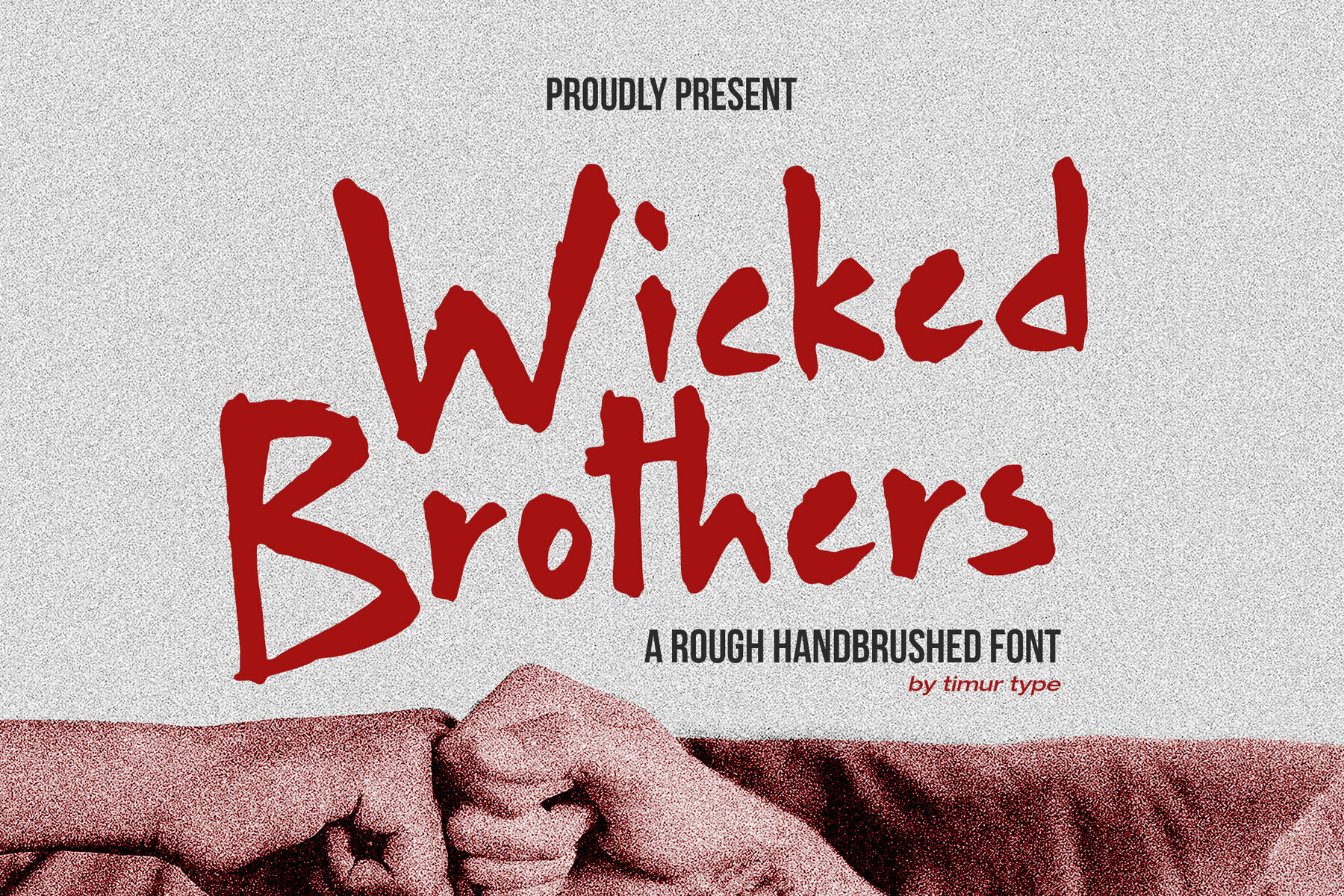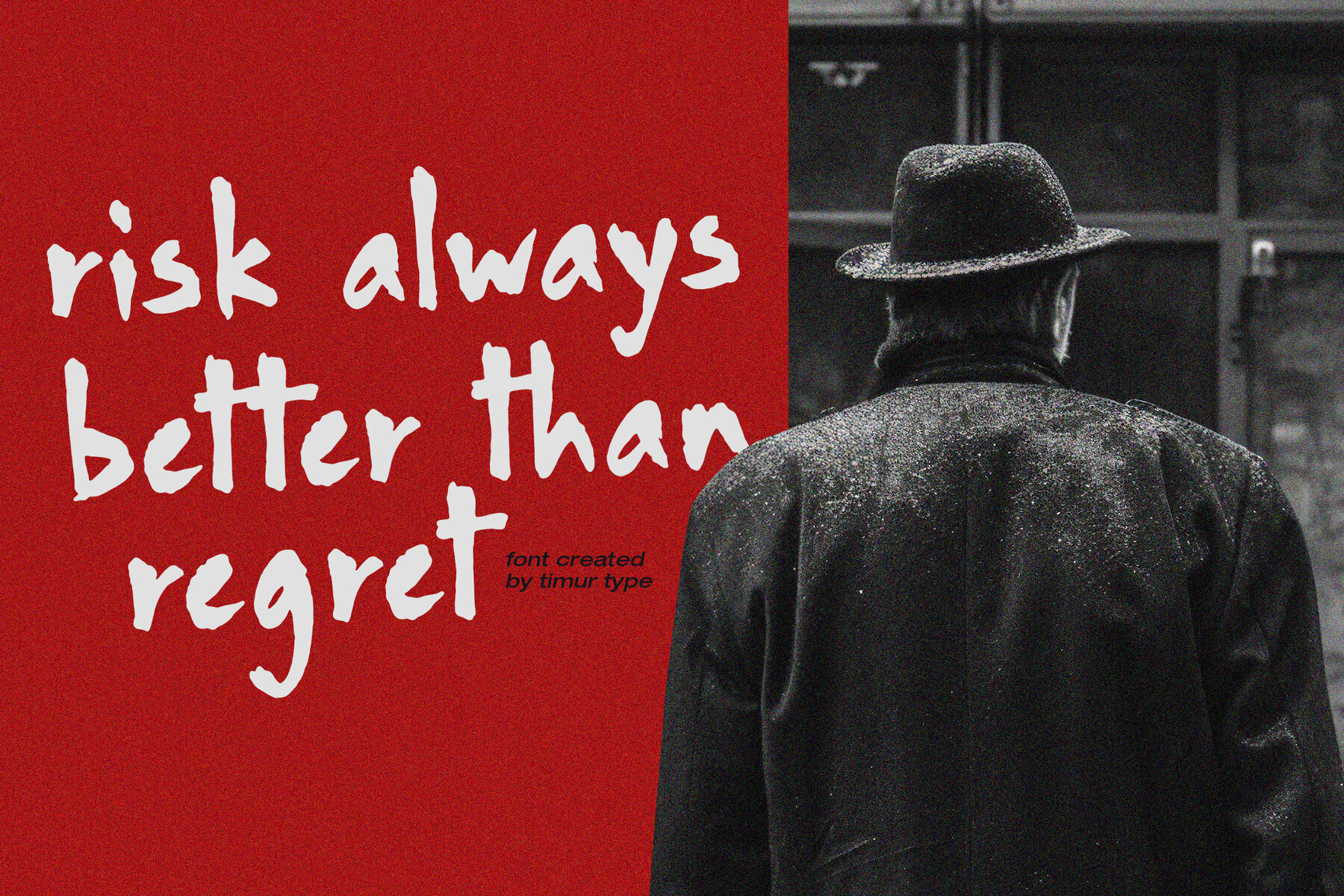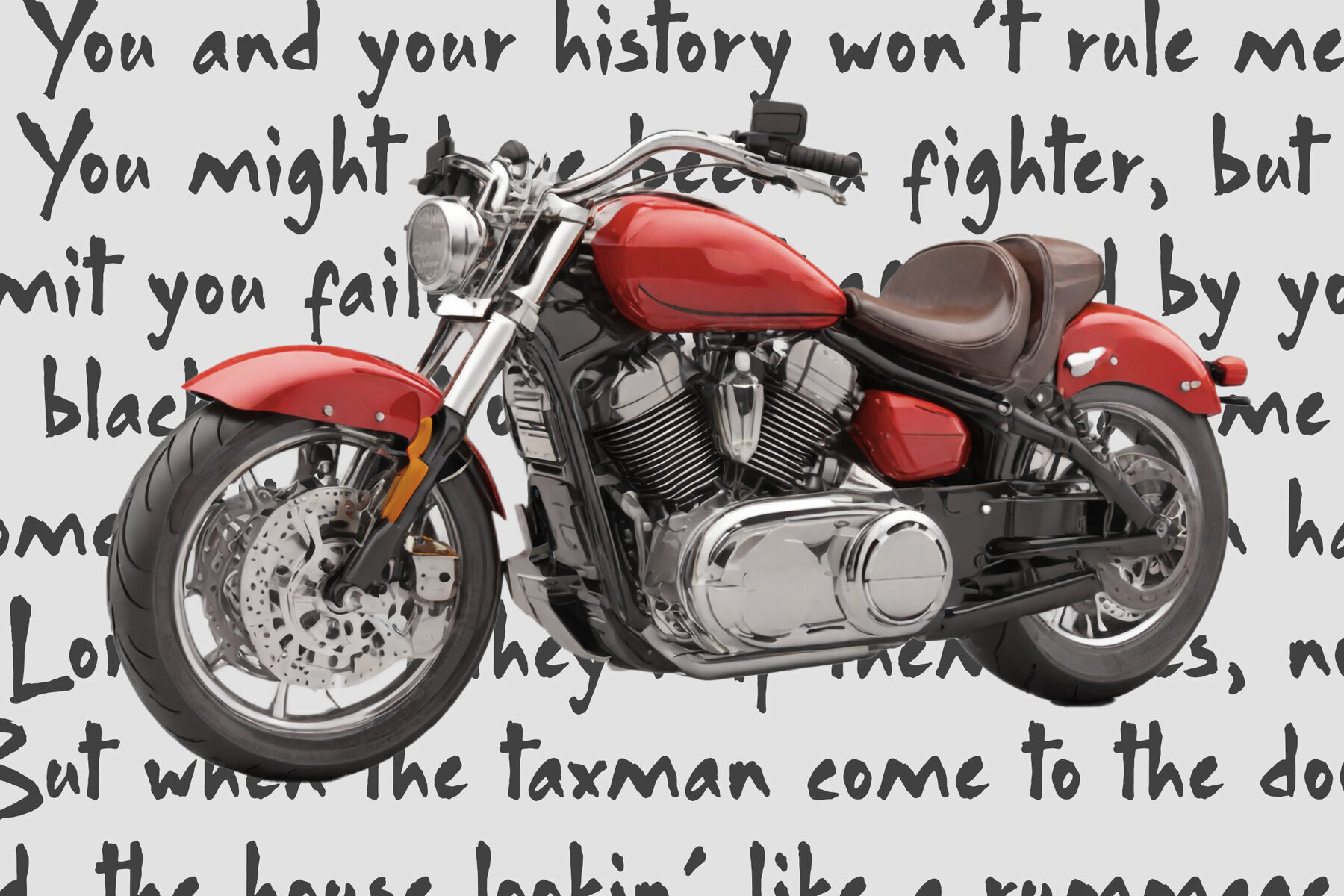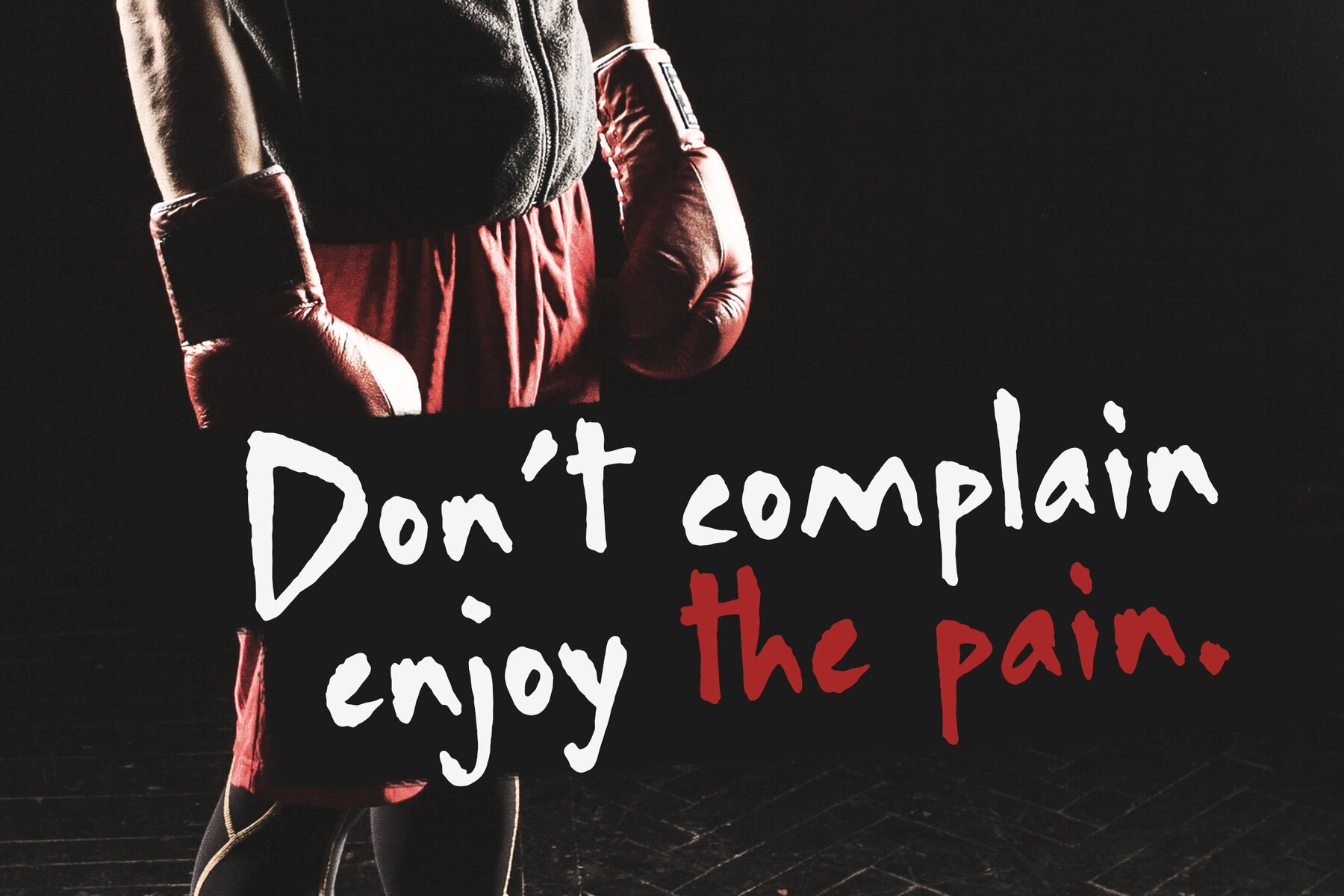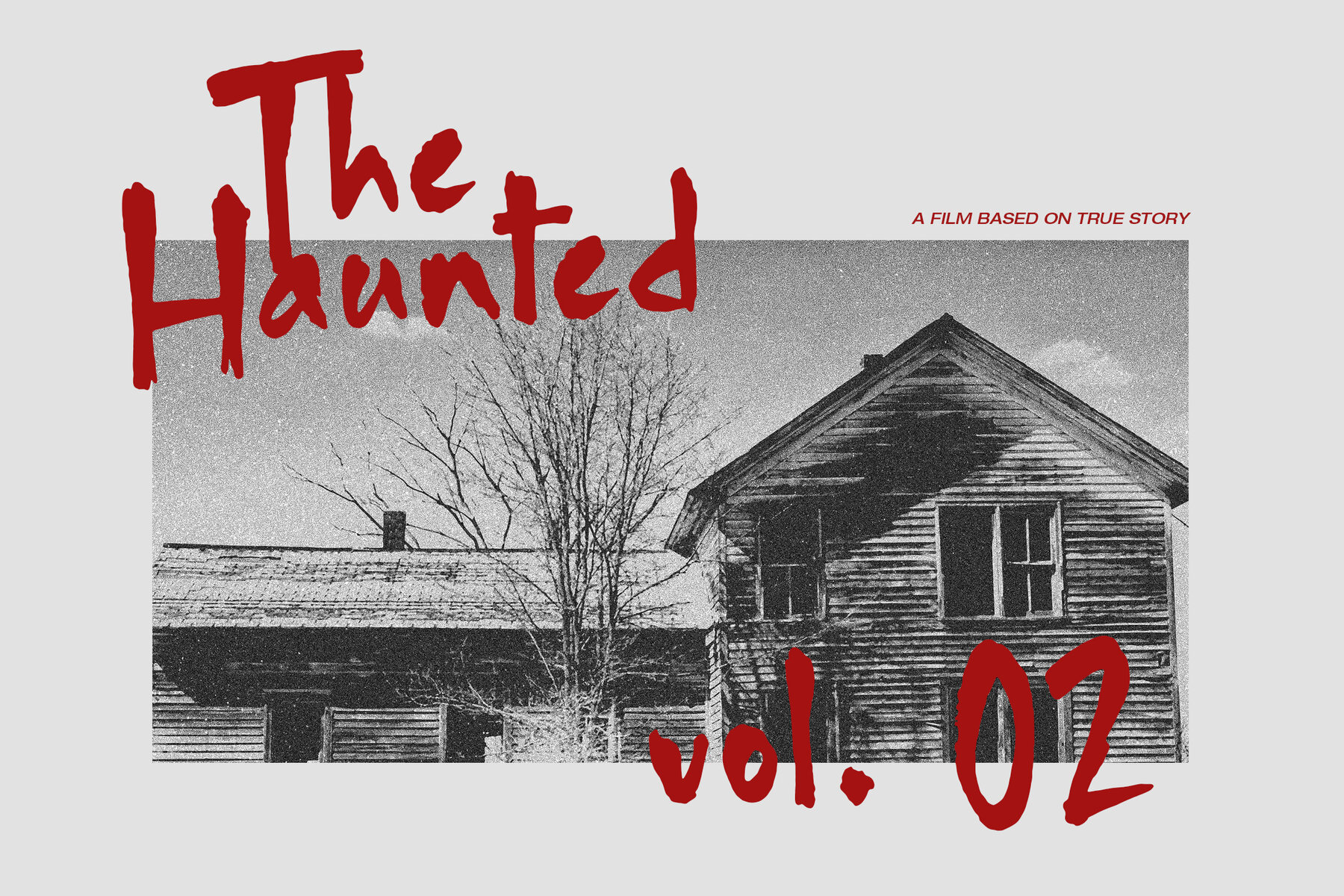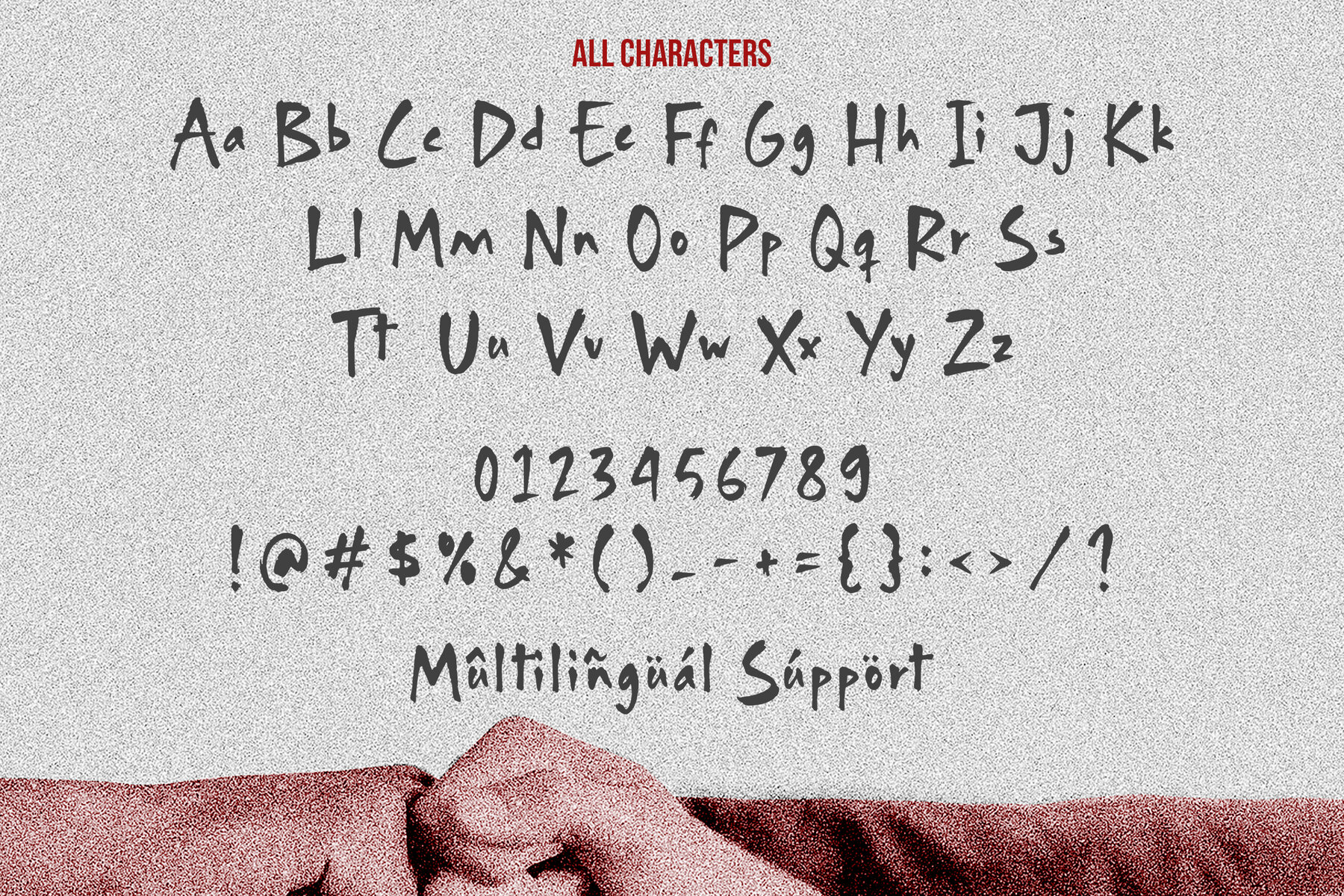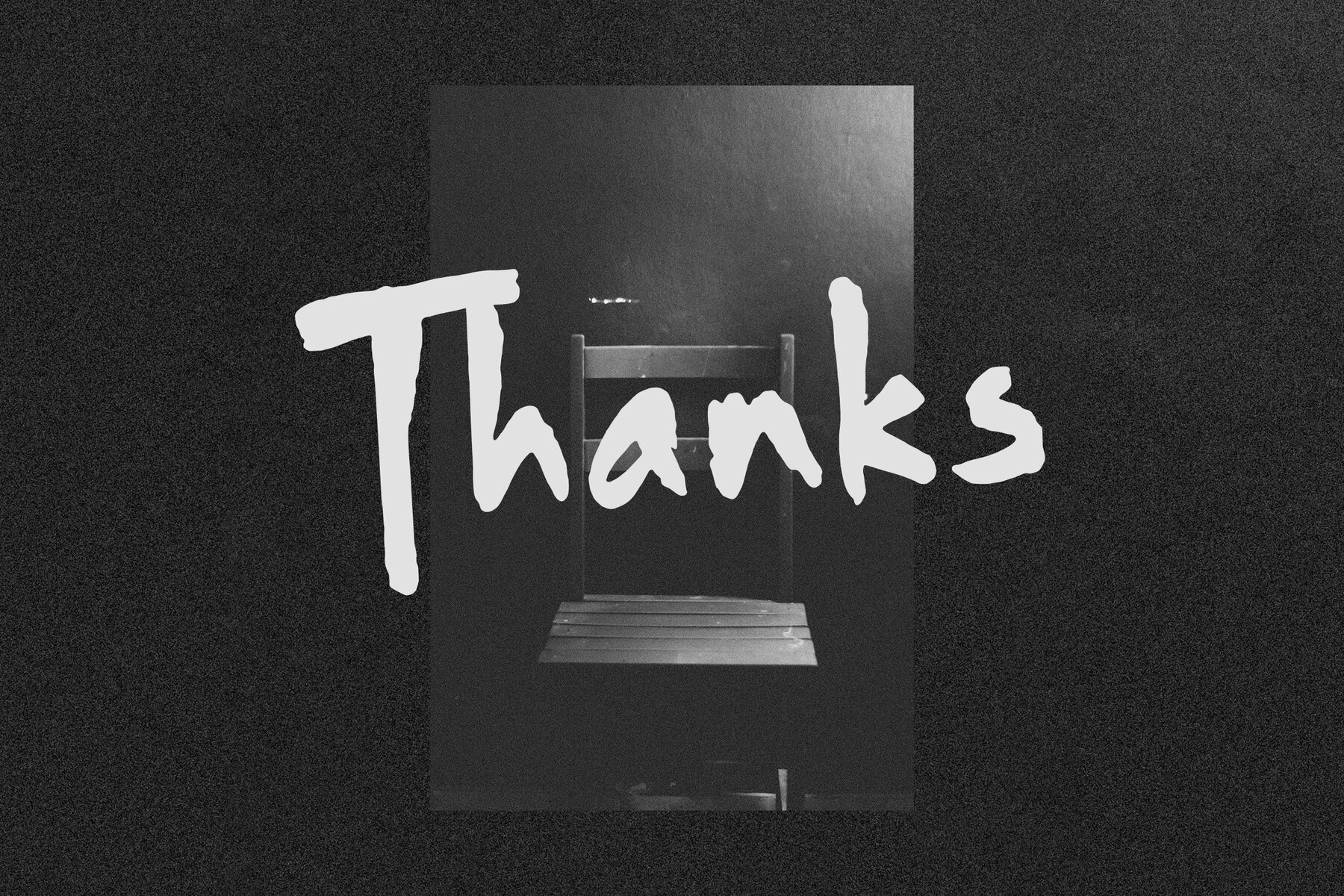
Wicked Brothers Font
Wicked Brothers
Wicked Brothers is a striking hand-brushed font with an edgy, rebellious character. Its rugged strokes and uneven lines contribute to a raw, untamed aesthetic. This makes it an excellent choice for projects that require a bold and dynamic design. Whether used in posters, logos, or branding, the font's distinctive style captures attention and underscores the message with an unmistakable attitude.
Ideal for designs that demand presence, Wicked Brothers delivers a unique visual impact. The font conveys a sense of vigor and individuality, making it particularly suited for creative projects seeking to break away from conventional typography. Its spirited nature ensures that any application will not only capture the eye but also leave a memorable impression, setting your work apart in any creative field.